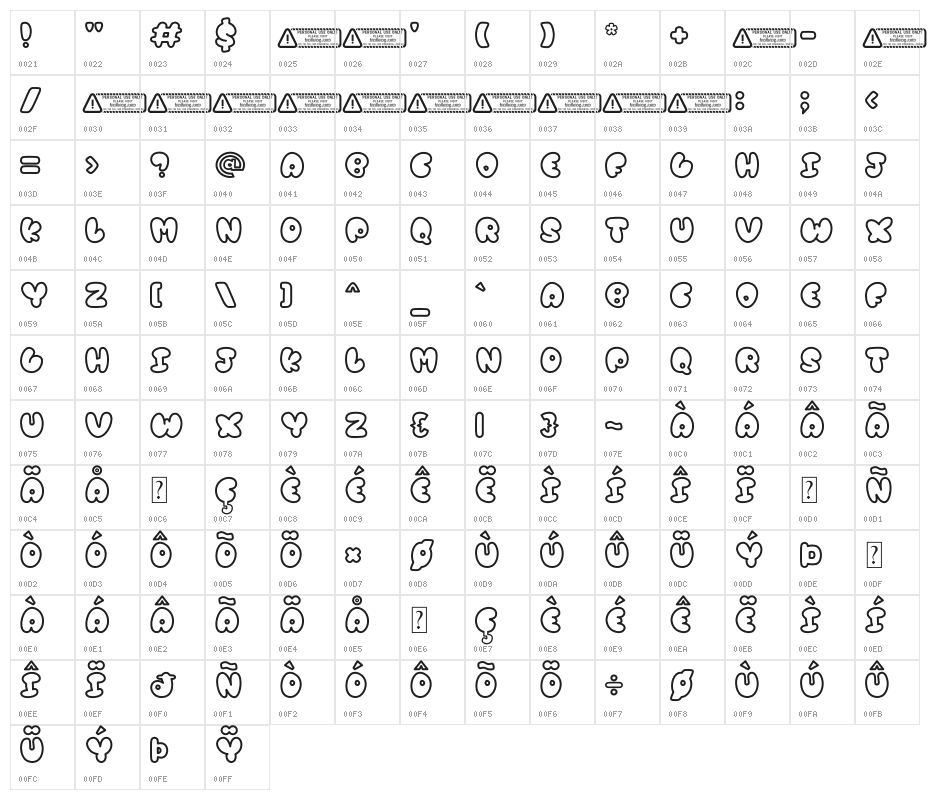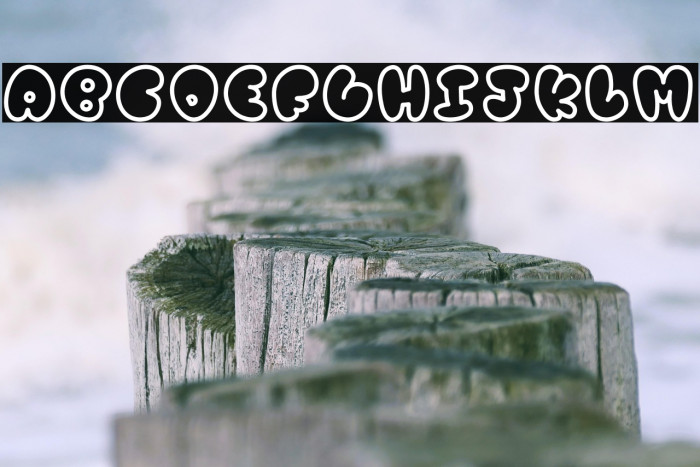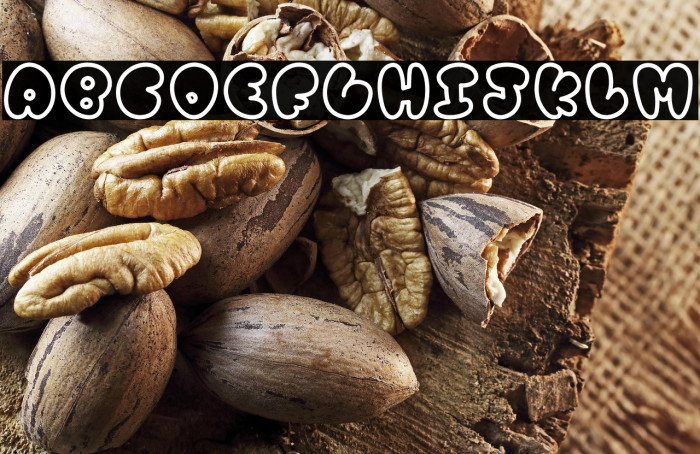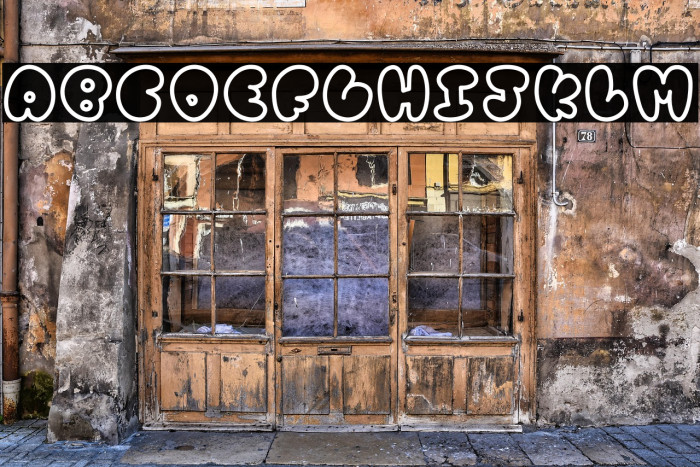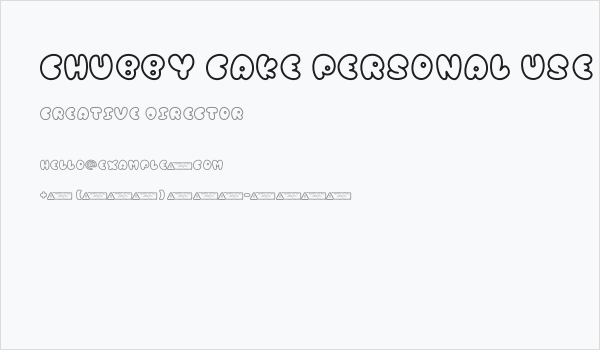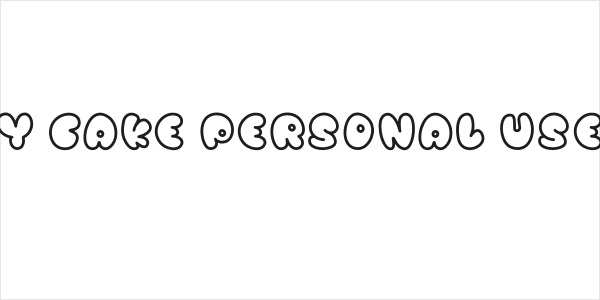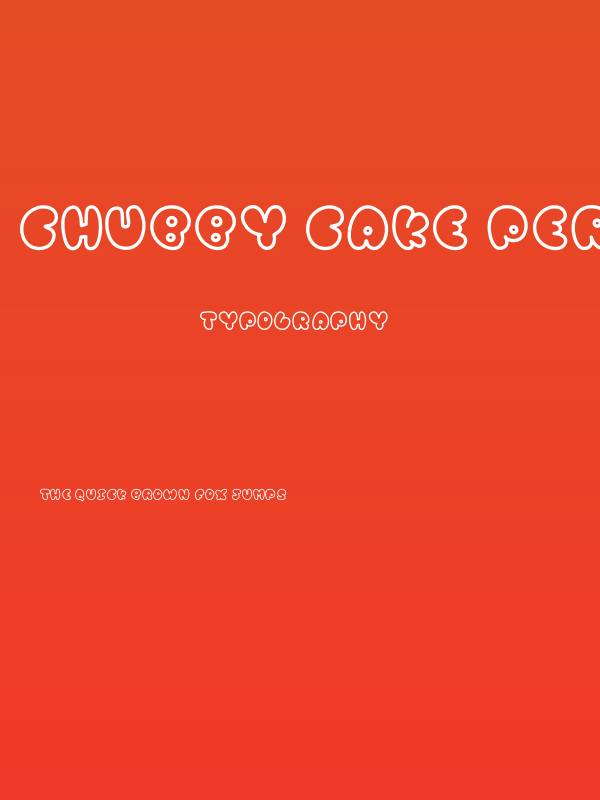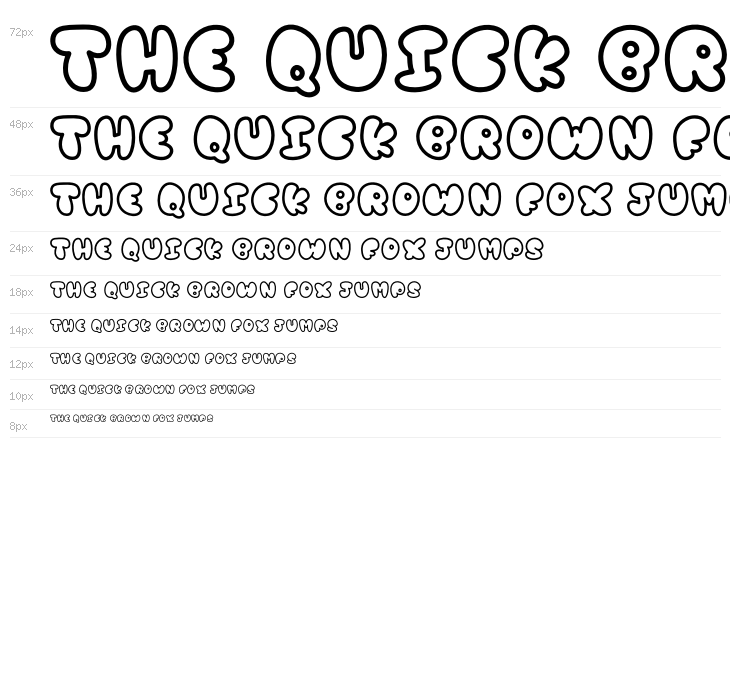
Chubby Cake PERSONAL USE ONLY! Font
Chubby Cake PERSONAL USE ONLY! Description
This playful and whimsical font features bold, rounded characters with a bubbly appearance. Each letter is outlined, giving it a cartoon-like quality that is both fun and approachable. The font maintains a consistent thickness throughout, contributing to its friendly and informal style. Its unique design makes it stand out, with characters that are slightly exaggerated and full of personality. The spacing between characters is normal, allowing for easy readability while maintaining its playful charm. This font is perfect for projects that require a touch of humor and creativity.